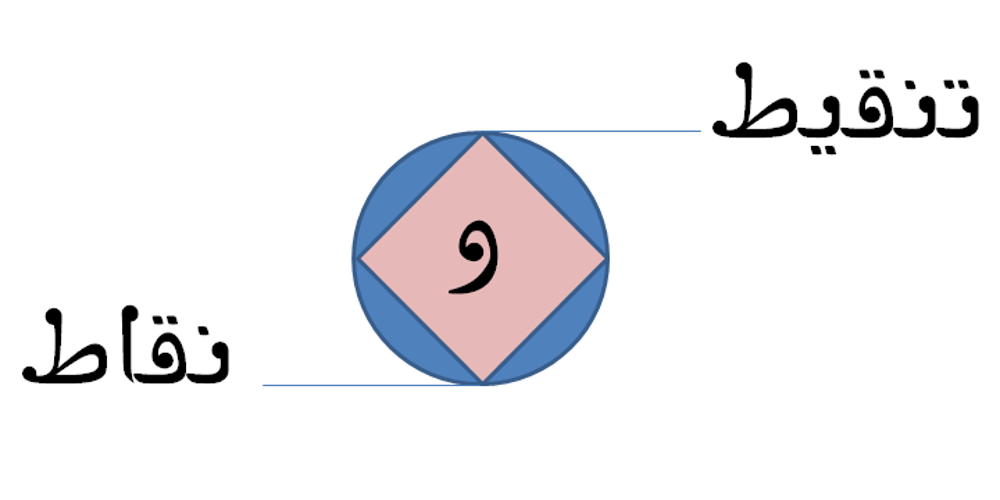
Nuqat Font Family was designed by Saad D. Abulhab and published by Arabetics. Nuqat contains 4 styles and family package options. An isolated letters typeface design with a comic feel. All letters start with a prominent circular dot. All final shape letters end with a smaller dot, in addition. The Nuqat (Arabic for dots) font family has four members which include two weights, normal and bold, and comes in regular and left-slanted italic styles. This font family design follows the guidelines of Mutamathil Taqlidi type style with one glyph for every basic Arabic Unicode character or letter, as defined in the latest Unicode Standards, and one additional final form glyph, for the freely-connecting letters in traditional Arabic cursive text. The Nuqat font family employs variable x-height values. Nuqat includes only Lam-Alif ligatures. Soft-vowel diacritic marks, harakat, are selectively positioned. Most of them appear by default on the same level, following a letter, to ensure that they would not interfere visually with letters. Tatweel is a zero-width glyph. Keying the tatweel key before Alif-Lam-Lam-Ha will display the Allah ligature. Nuqat includes both Arabic and Arabic-Indic numerals, in addition to standard punctuations.